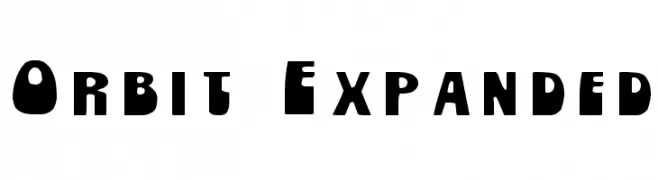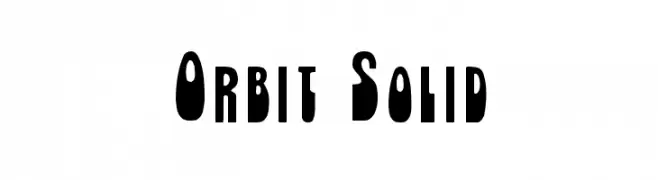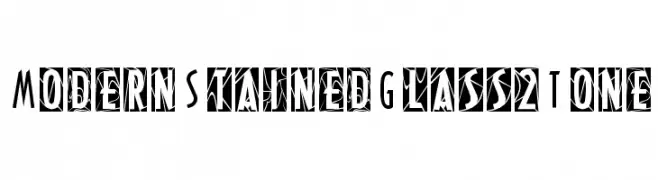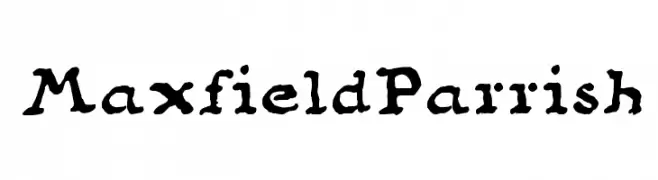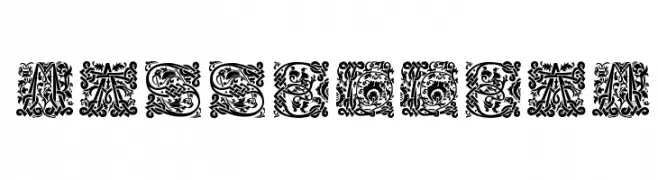
A bold, expansive font with a strong, blocky appearance.
A bold, condensed font with rounded edges and a strong visual impact.
A bold, playful font with a three-dimensional shadow effect.
An ornate, decorative font with intricate floral designs within each letter.
A bold, decorative font with intricate patterns inside each character.
An organic, vine-like decorative font with a whimsical, fantasy-inspired style.
A decorative font with a stained glass-inspired, geometric design.
A modern, stained glass-inspired font with bold, geometric patterns.
A whimsical, hand-drawn font with a vintage, artistic flair.
An ornate, vintage-style font with intricate floral patterns.